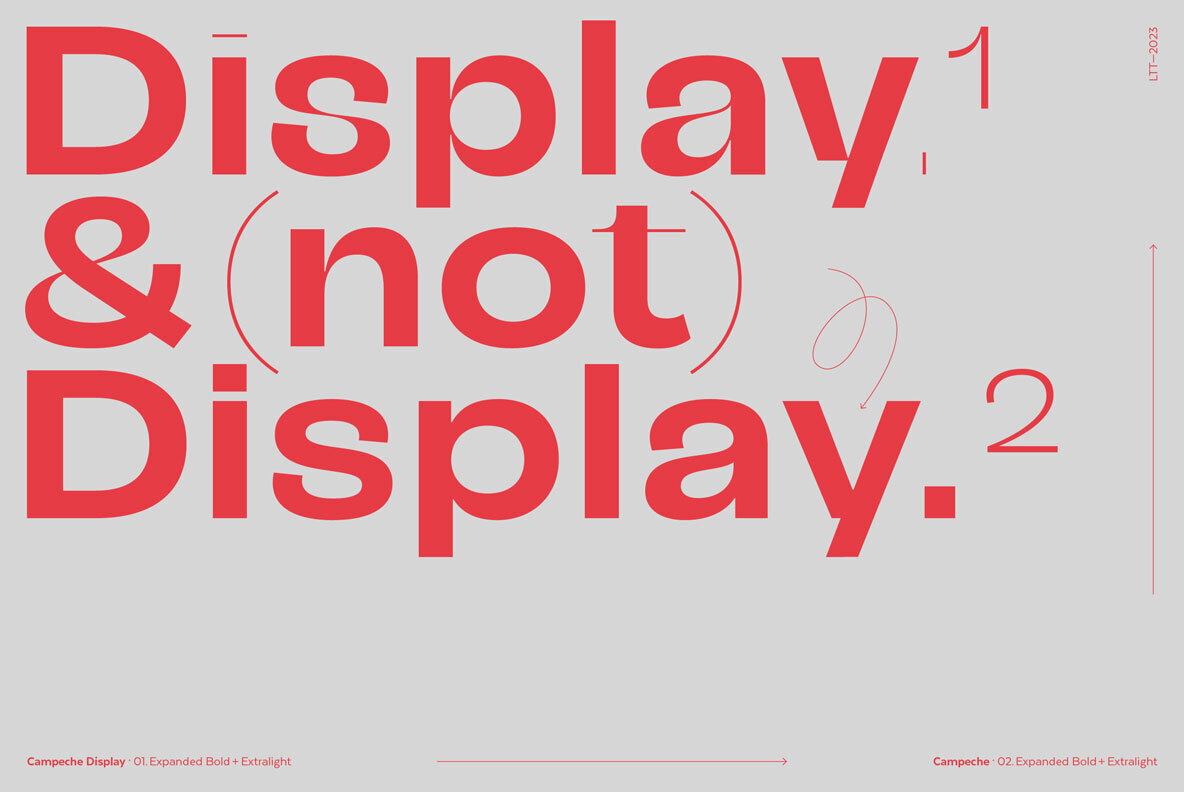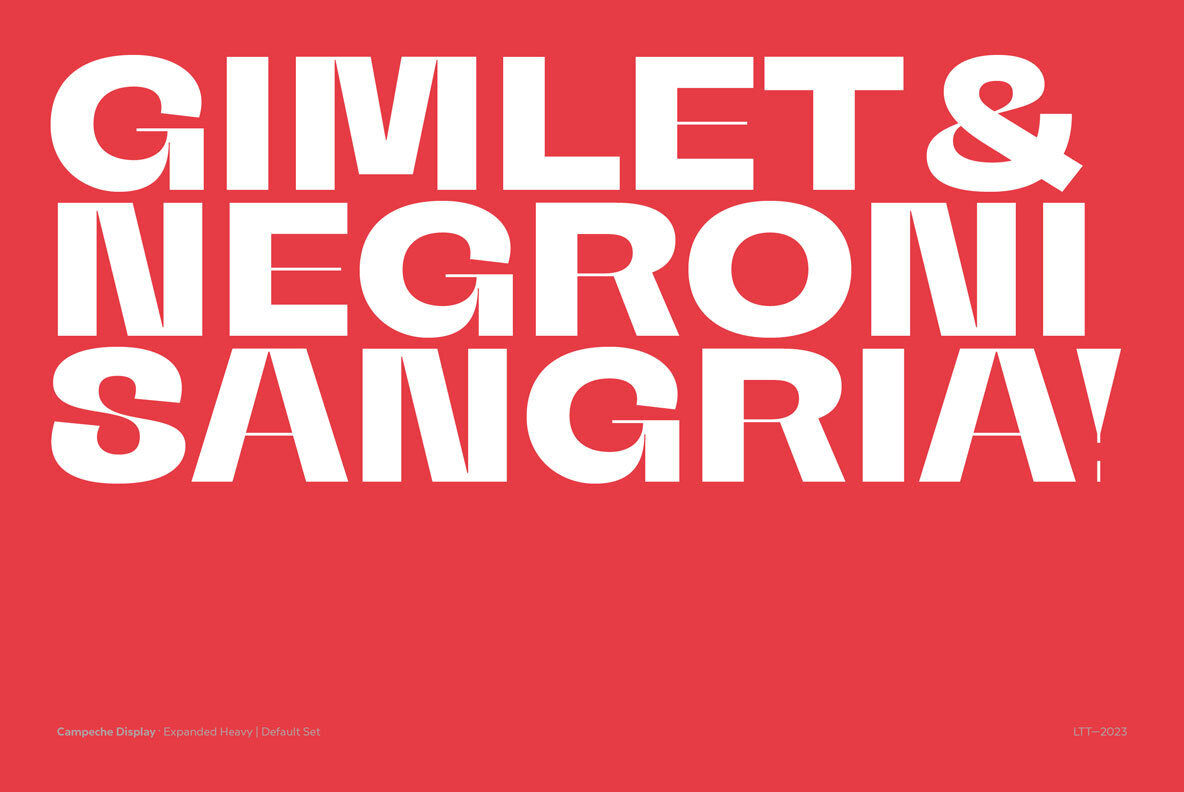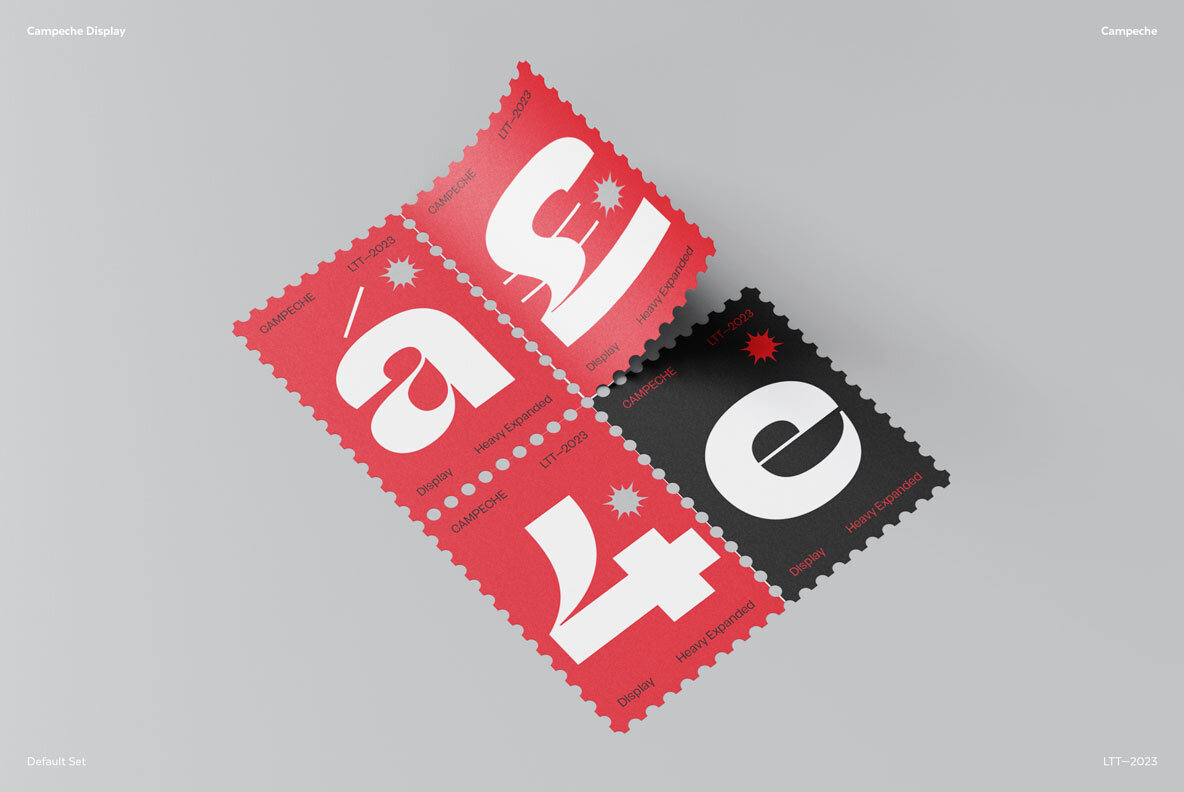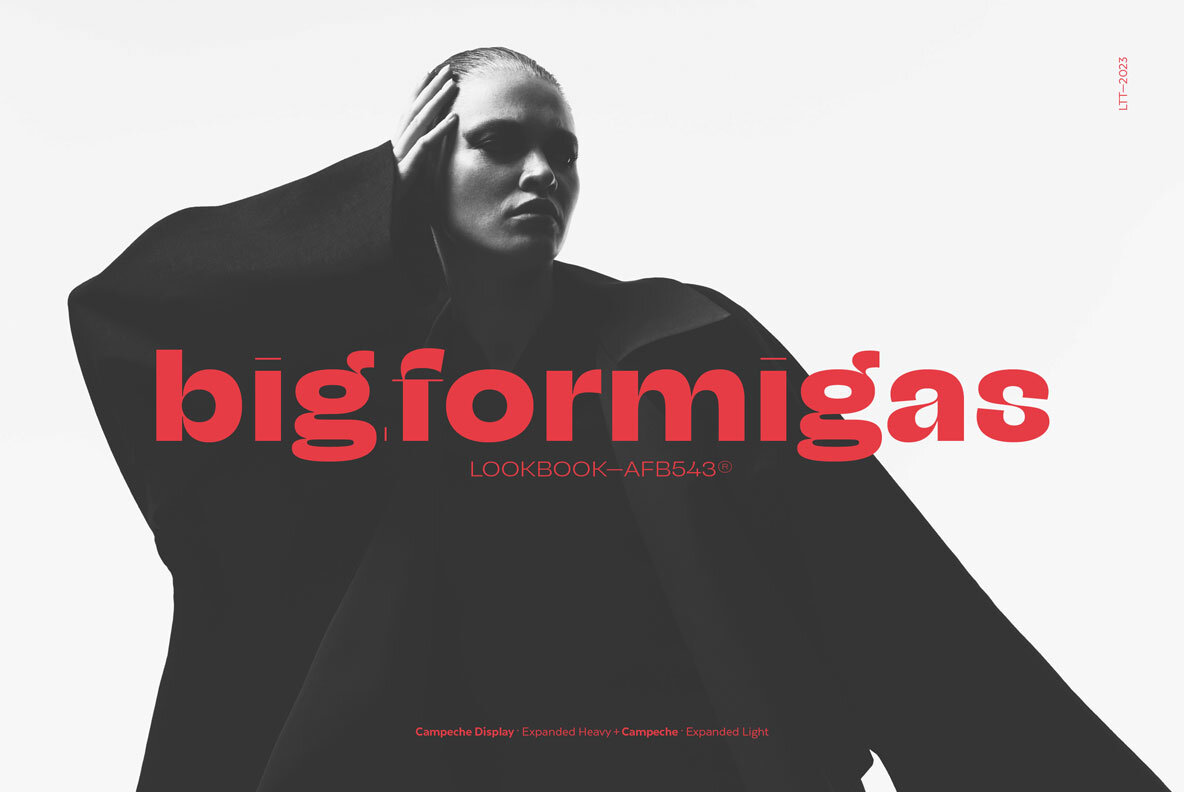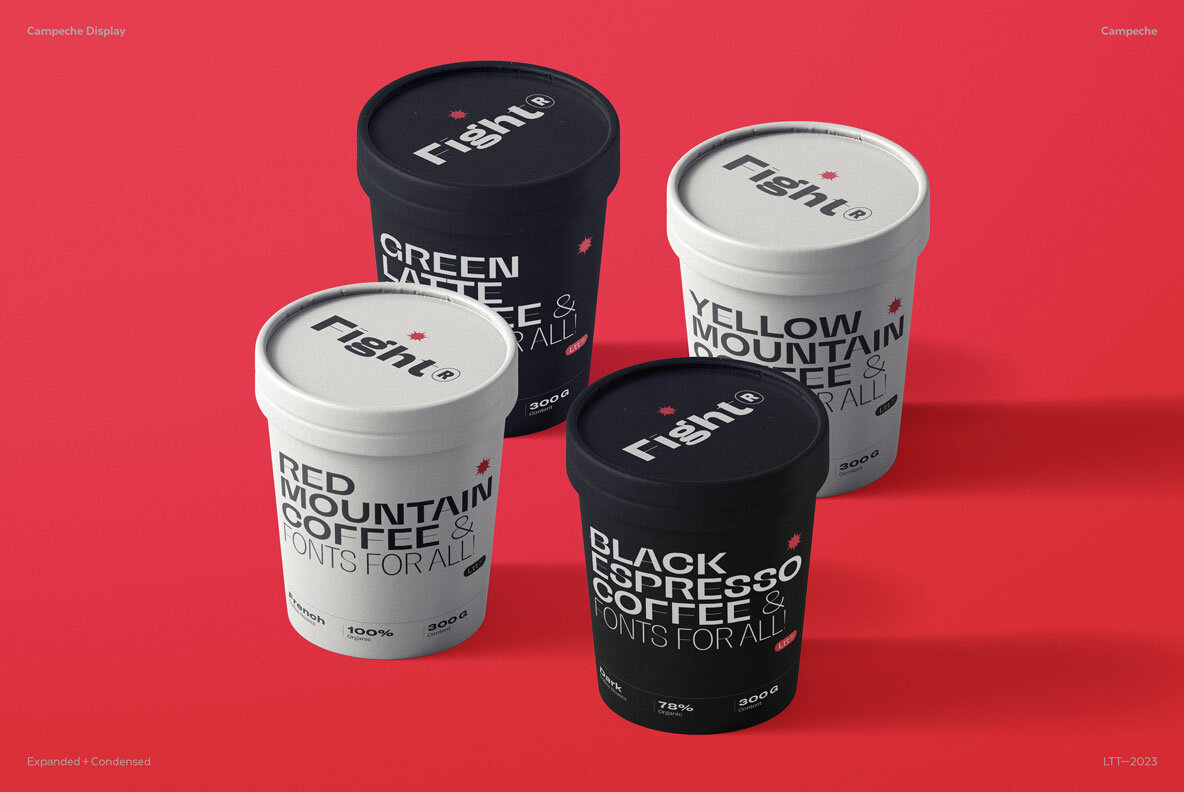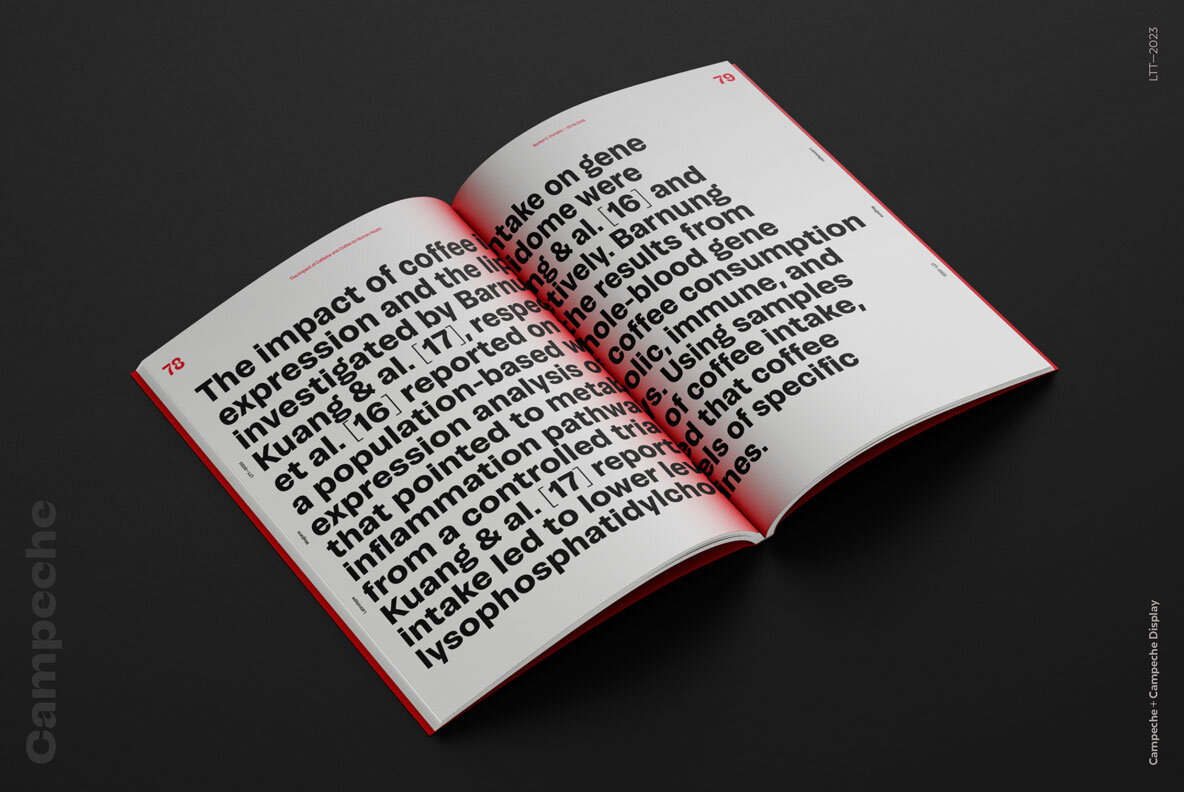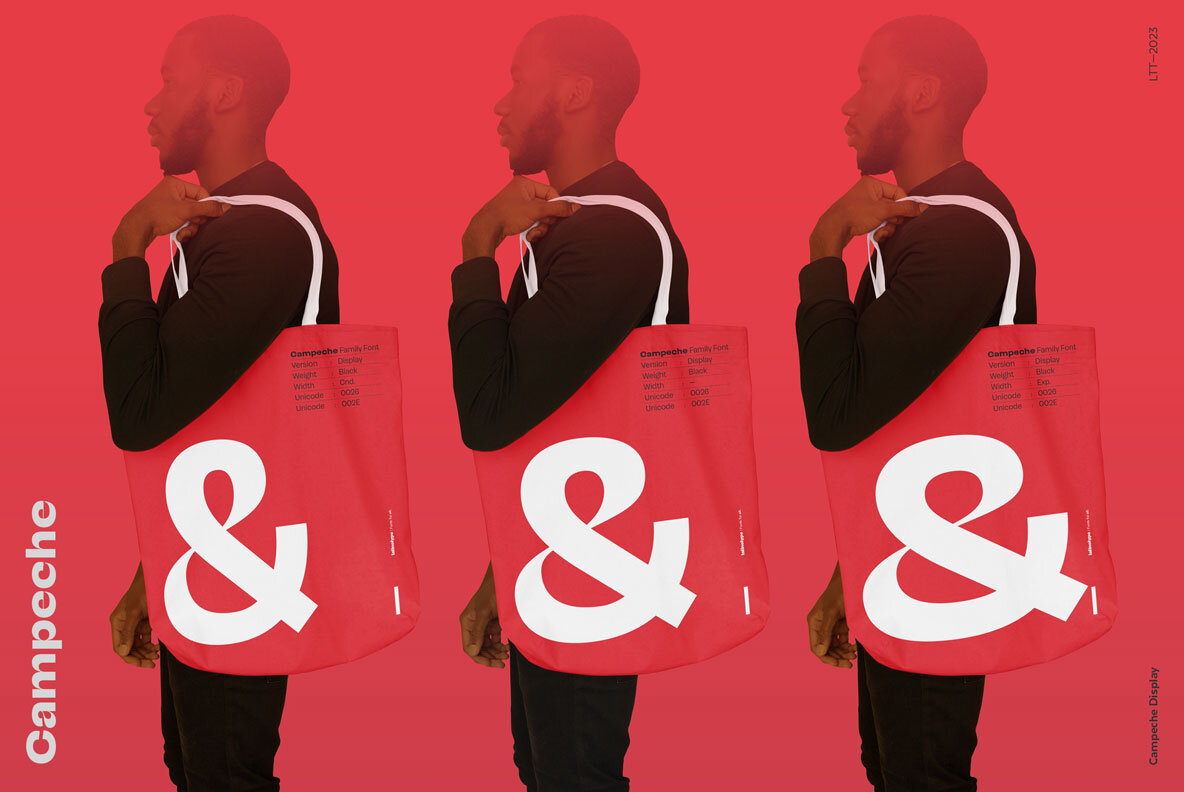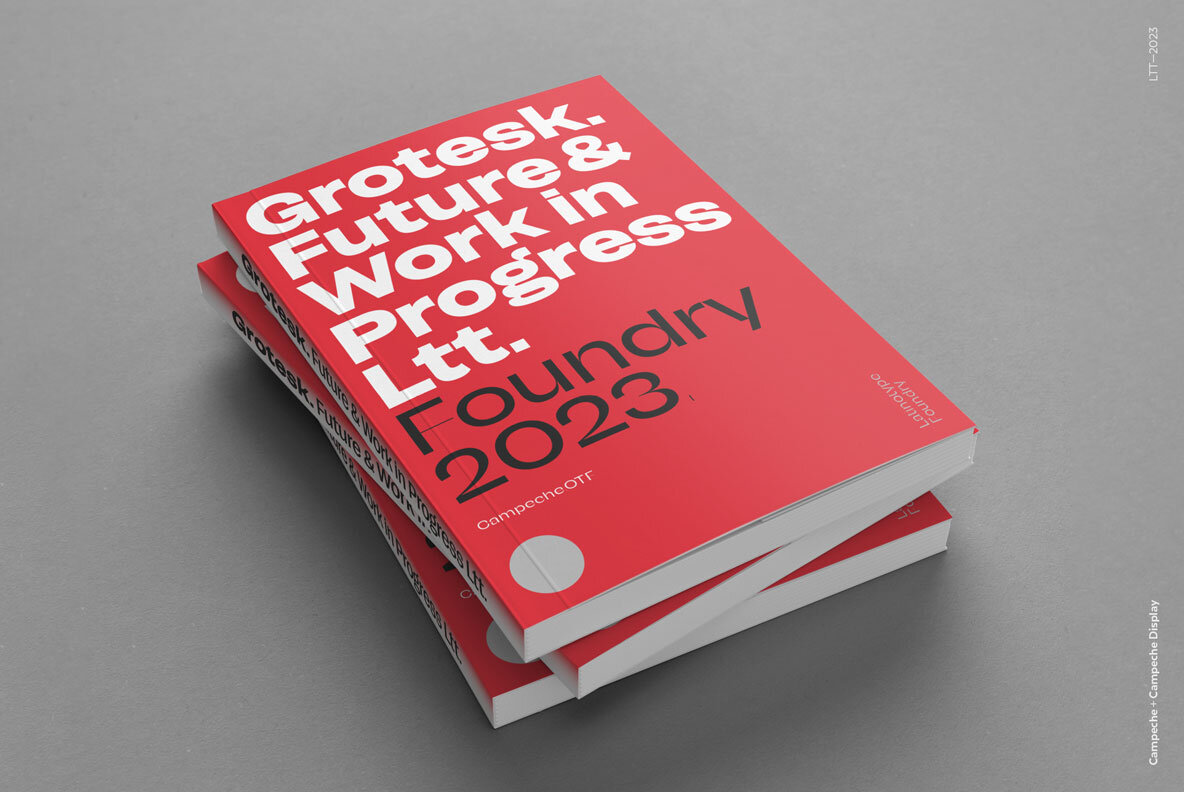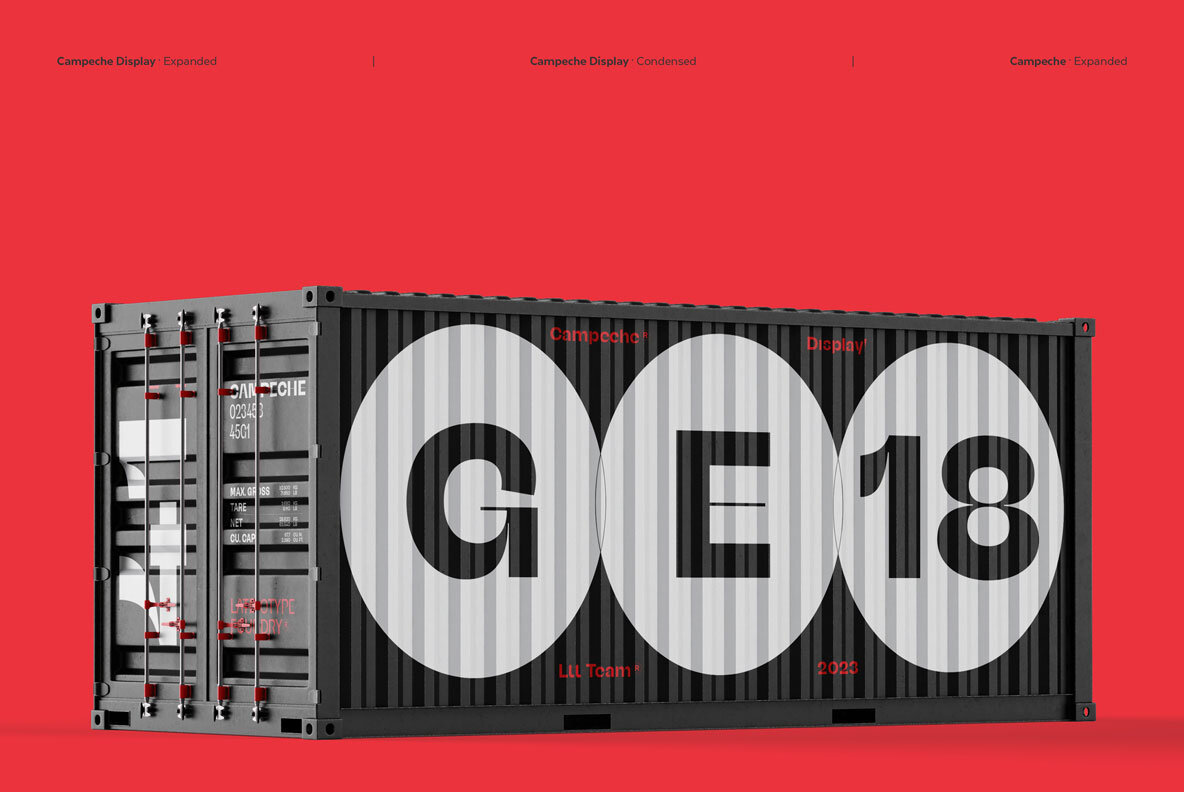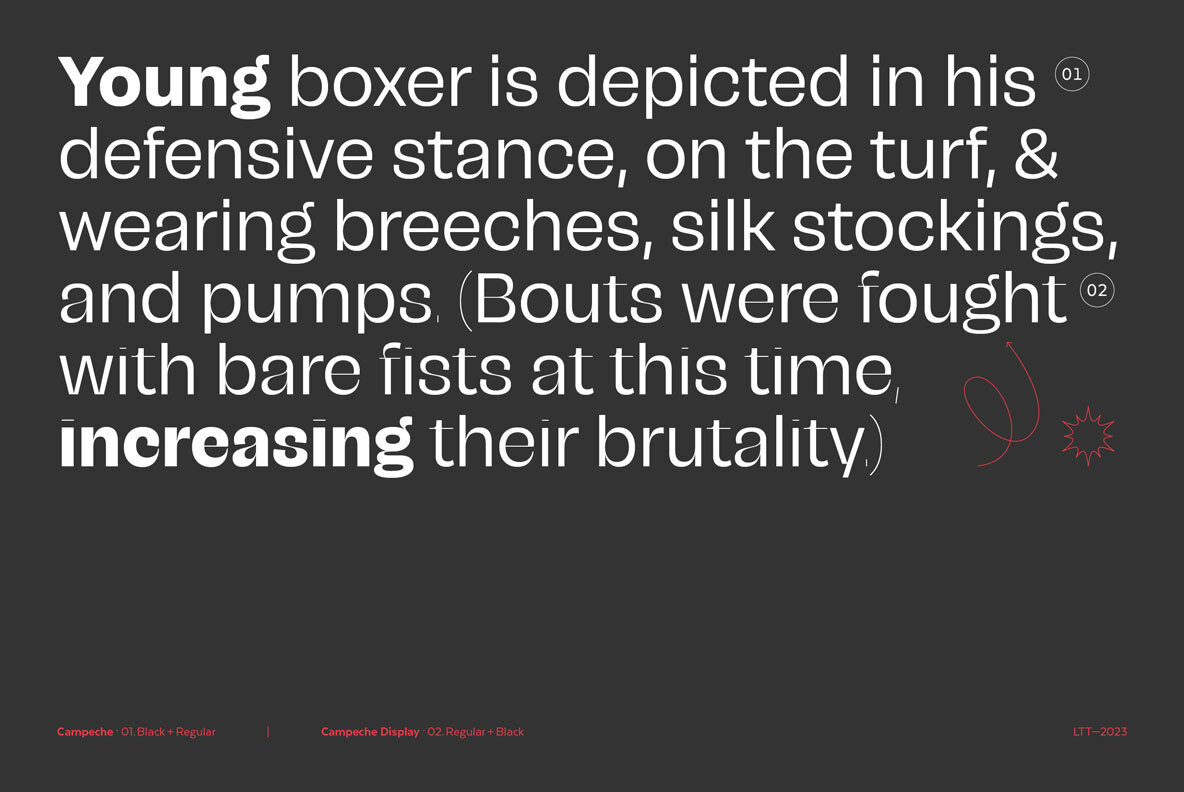
Campeche Font
The initial form arises from the idea of expanding Seriguela, evolving along the way, becoming its own system with a unique personality.